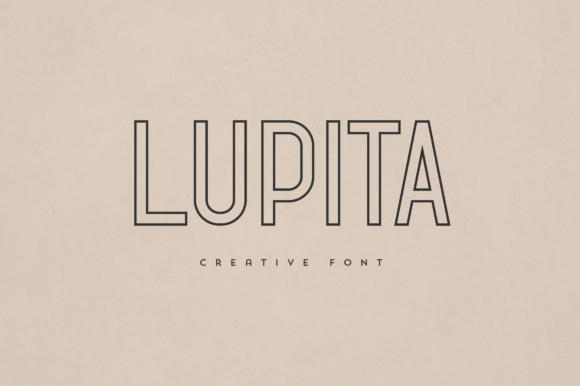
Unleash your creative flair with Lupita Font, the captivating sans serif that transforms your words into enchanting works of art. Crafted by the renowned vladfedotovv, Lupita embodies a spirit of sophistication and versatility, ready to elevate your designs to new heights.
Picture your wedding invitations adorned with Lupita's graceful curves, creating an ambiance of timeless elegance. Let your logo designs shimmer with its alluring strokes, capturing attention and leaving a lasting impression. From magazine headers to product packaging, Lupita seamlessly adapts, adding a touch of understated luxury to every project.
Imagine your social media posts adorned with Lupita's charm, captivating your audience with its magnetic presence. Its unique character effortlessly adds depth and visual interest to your images, making your brand stand out from the crowd.
With Lupita, you're not just downloading a font; you're inviting an artistic muse into your creative journey. Whether you're a seasoned designer or just starting to explore the world of typography, Lupita will empower you to express yourself in a way that resonates with your audience.
As you delve into the depths of Lupita's glyphs, you'll discover a world of possibilities. Create harmonious headlines that dance across the page, or craft captivating body text that draws readers in and keeps them engaged. Let Lupita's timeless appeal elevate your designs, giving them a touch of sophistication that will endure the test of time.